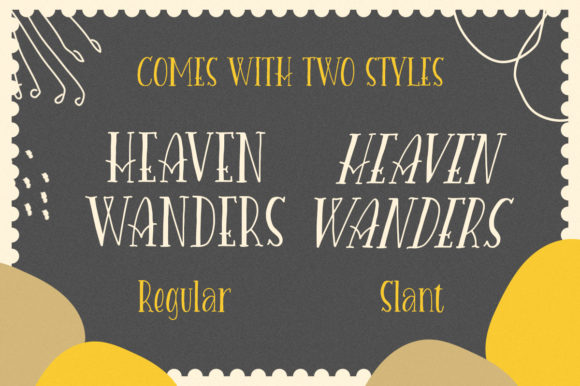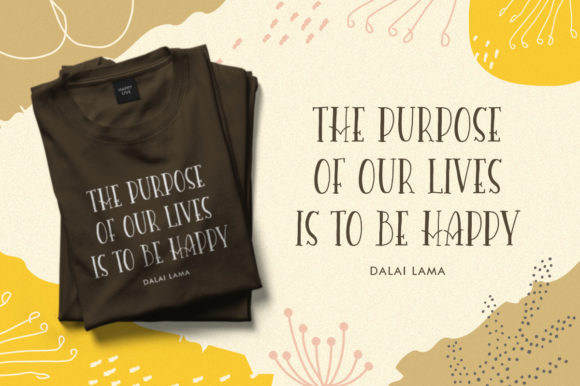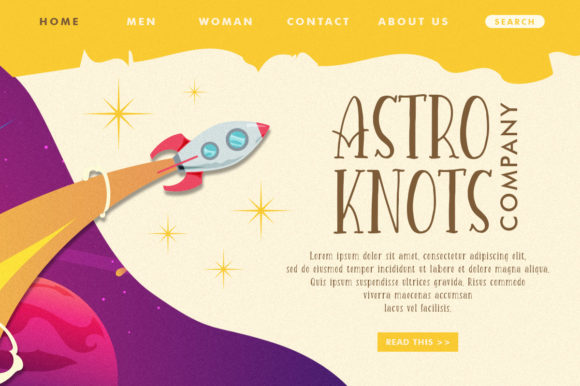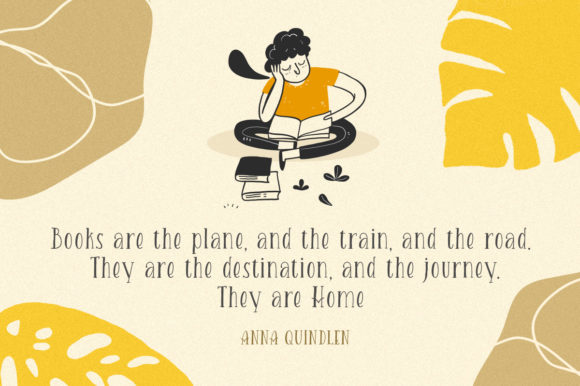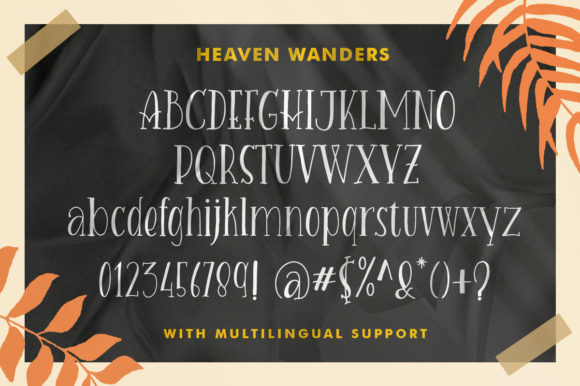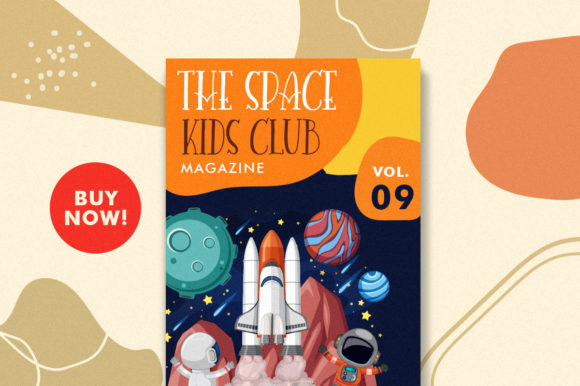
Discover the Elegance of Heaven Wanders Font: Elevate Your Designs with a Simple yet Powerful Lettered Serif Font
In the vast universe of typography, finding the perfect font that brings your creative ideas to life can be a daunting task. However, if you’re on the lookout for a typeface that combines simplicity, neatness, and a touch of elegance, then the Heaven Wanders Font is your go-to solution. This beautifully crafted lettered serif font is designed to make your projects stand out from the crowd, offering a fresh and unique aesthetic that’s both versatile and captivating.
What Makes Heaven Wanders Font Stand Out?
Heaven Wanders is not just another font; it’s a design element that can transform your creative projects. Here are some key features that make it a must-have for designers and crafters:
- Simple and Neat Design: The Heaven Wanders Font boasts a clean and uncluttered design. Its simplicity ensures that your message is conveyed clearly and effectively, making it perfect for a wide range of applications, from digital content to print materials.
- Lettered Serif Elegance: The serif details add a touch of sophistication and elegance to the font. This makes Heaven Wanders ideal for projects where you want to convey a sense of professionalism and refinement.
- Versatility: Whether you’re working on a branding project, crafting a unique invitation, or designing a compelling blog post, Heaven Wanders can adapt to any style or theme. Its neutral yet distinctive appearance allows it to complement a variety of design elements.
- Enhanced Readability: The carefully crafted letters ensure excellent readability, even at smaller sizes. This is crucial for ensuring that your content is accessible and enjoyable to read across different platforms.
How to Use Heaven Wanders Font in Your Projects
Incorporating Heaven Wanders into your design workflow is straightforward. Here are some ideas to get you started:
- Branding and Logotypes: Use Heaven Wanders to create a memorable logo or to develop a consistent brand voice. Its unique yet legible design makes it an excellent choice for businesses looking to stand out.
- Digital and Print Media: From website headers to social media graphics, and from brochures to posters, Heaven Wanders can elevate your content with its stylish appeal.
- Crafting and DIY Projects: If you’re into scrapbooking, card making, or any form of crafting, Heaven Wanders can add a professional and personalized touch to your creations.
Tips for Maximizing the Impact of Heaven Wanders Font
To make the most out of Heaven Wanders, consider the following tips:
- Play with Colors: While the font itself is the star, experimenting with different colors can help you match it perfectly with your brand or project’s theme.
- Mix and Match: Don’t be afraid to combine Heaven Wanders with other fonts. A well-chosen pairing can add depth and interest to your designs.
- Adjust and Customize: Depending on your project’s requirements, you might want to adjust the font size, spacing, or even experiment with effects to ensure it fits your design vision.
The Heaven Wanders Font is more than just a typeface; it’s a design tool that can elevate your creative projects to new heights. Its blend of simplicity, elegance, and versatility makes it an invaluable asset for designers and crafters alike. By incorporating Heaven Wanders into your workflow, you’ll not only streamline your design process but also ensure that your projects stand out with a unique and captivating aesthetic. So, why wait? Explore the possibilities with Heaven Wanders Font today and discover how it can transform your designs.